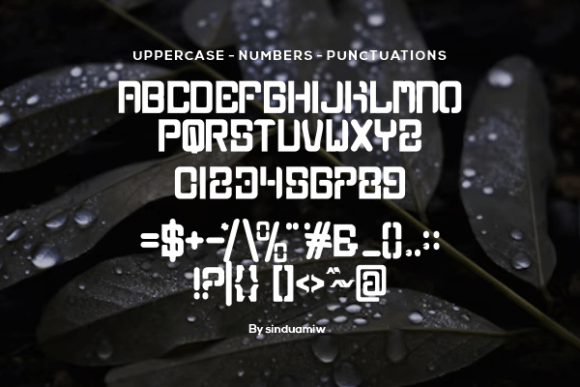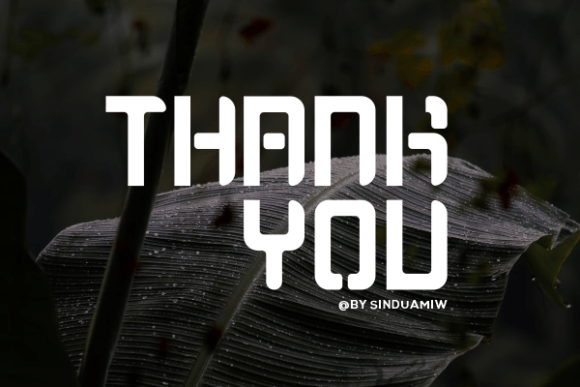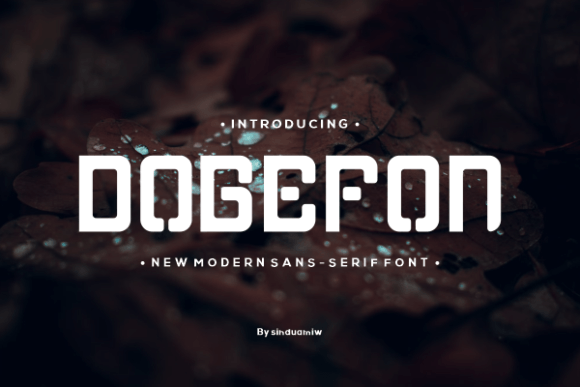
Introducing Dogefon: The Bold and Assertive Sans Serif Font
In the world of typography, a good font can make all the difference in the success of a design project. Whether you’re a seasoned designer or a crafty DIY enthusiast, having the right font in your arsenal can elevate your creations from ordinary to extraordinary. That’s where Dogefon comes in – a bold and assertive sans serif font that’s sure to become a valuable asset in your font library.
What is Dogefon?
Dogefon is a modern sans serif font that’s designed to make a statement. With its bold and assertive personality, this font is perfect for projects that require a strong visual impact. Whether you’re working on a logo, a headline, or a body of text, Dogefon is versatile enough to adapt to any topic or theme.
Key Features of Dogefon
- Bold and Assertive: Dogefon is designed to grab attention and make a statement. Its bold strokes and assertive personality make it perfect for projects that require a strong visual impact.
- Sans Serif: The clean and minimalist design of Dogefon makes it easy to read and versatile enough to use in a variety of contexts.
- Highly Legible: Despite its bold personality, Dogefon is highly legible, even at smaller font sizes. This makes it perfect for body text, headlines, and titles.
- Universal Appeal: Dogefon’s neutral design ensures that it can be used on a wide range of topics and themes, from technology and finance to fashion and lifestyle.
Why Use Dogefon?
So why should you consider adding Dogefon to your font library? Here are just a few reasons:
- Elevate Your Designs: With Dogefon, you can add a touch of sophistication and elegance to your designs. Its bold personality ensures that your text will stand out and grab attention.
- Save Time: With a versatile font like Dogefon, you can save time and effort in your design process. No need to search for multiple fonts to find the perfect one – Dogefon can do it all.
- Increase Brand Consistency: If you’re working on a brand identity project, Dogefon can help you establish a consistent visual language. Its bold and assertive personality ensures that your brand will stand out and be remembered.
How to Use Dogefon
Using Dogefon is easy! Here are a few tips to get you started:
- Headlines and Titles: Use Dogefon to create bold and attention-grabbing headlines and titles. Its assertive personality ensures that your text will stand out.
- Body Text: Despite its bold personality, Dogefon is highly legible, even at smaller font sizes. Use it for body text to add a touch of sophistication to your designs.
- Logo Design: Dogefon’s bold and assertive personality makes it perfect for logo design. Use it to create a strong and memorable brand identity.
In conclusion, Dogefon is a bold and assertive sans serif font that’s sure to become a valuable asset in your font library. Its versatility, legibility, and universal appeal make it perfect for a wide range of design projects. Whether you’re a seasoned designer or a crafty DIY enthusiast, Dogefon is a font that’s sure to elevate your creations and help you achieve your design goals.